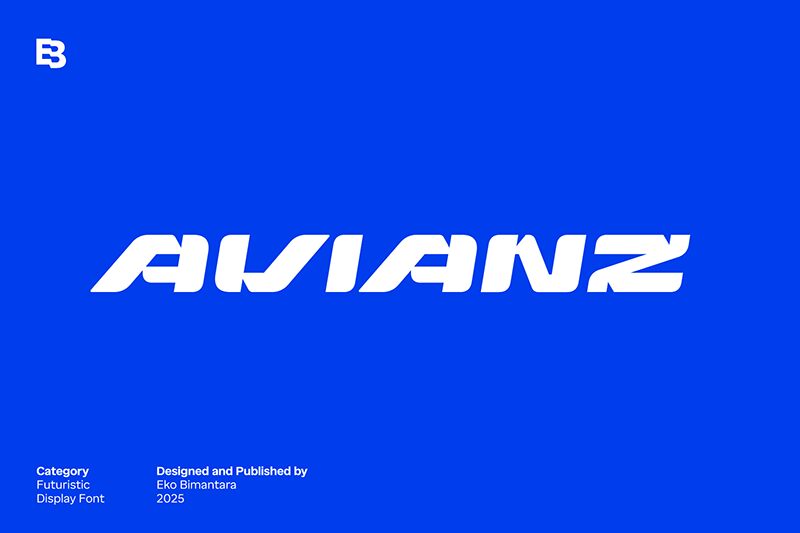
Avianz Trial
Avianz font by Eko Bimantara is a free futuristic expanded display font. It is characterized by sleek and angular elements which add to its cohesive yet intriguing design. With a strong presence and sharp style, Avianz stands out while still being perfectly legible in any project imaginable.
Avianz can be used for book covers, posters, magazine covers, website designs, Powerpoint presentations, movie titles or banners. Use the font for branding or advertising projects including those involving packaging designs. Product labels and bands especially of clothes can also be attached with this interesting font.